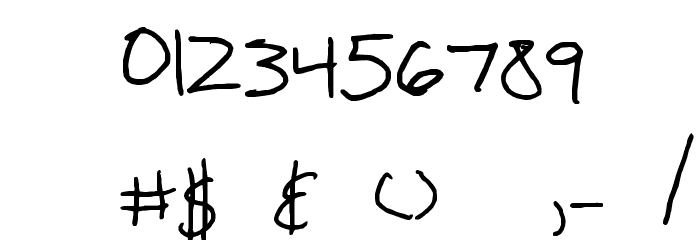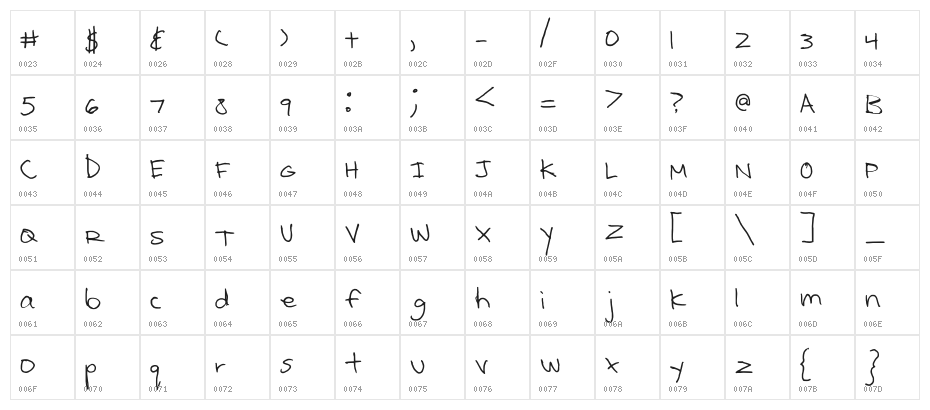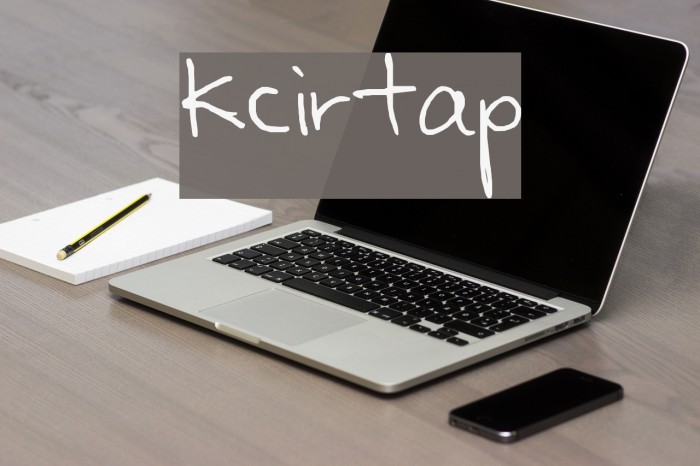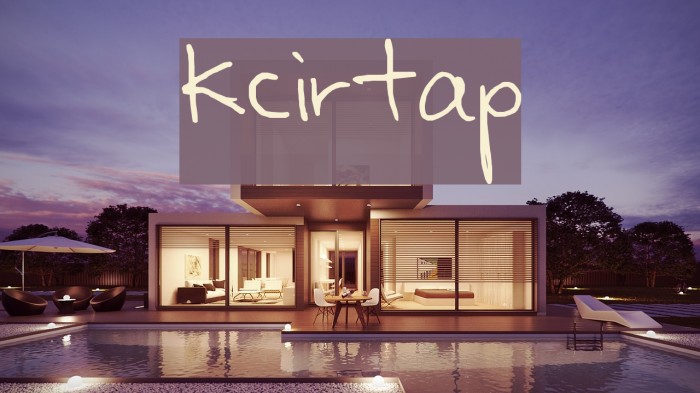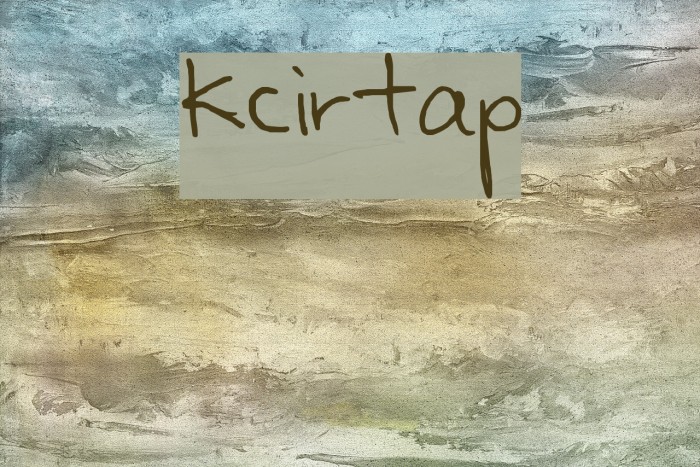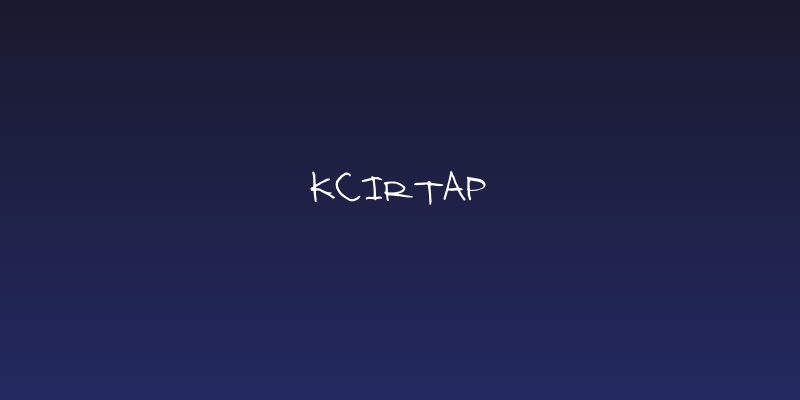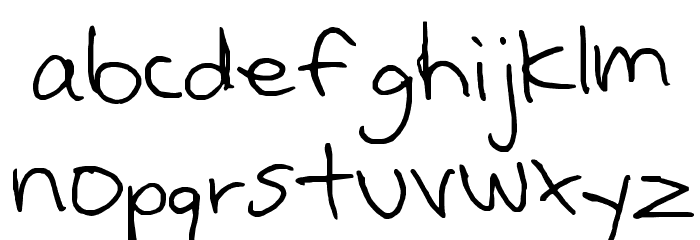
Kcirtap Font
Kcirtap Description
This font exudes a casual and playful handwritten style, characterized by its uneven strokes and organic flow. The letters have a natural, freeform appearance, reminiscent of a quick sketch or doodle. The uppercase and lowercase letters maintain a consistent style, with a slight tilt and varying stroke thickness that adds to its informal charm. Numbers and special characters follow the same aesthetic, ensuring a cohesive look across all glyphs. The font's irregularities and spontaneous feel make it ideal for projects that require a personal touch or a sense of whimsy.
| Use Case | Headlines, Logos, Informal text |
| Proposed Projects | Ideal for greeting cards, personal notes, children's books, and creative branding. |